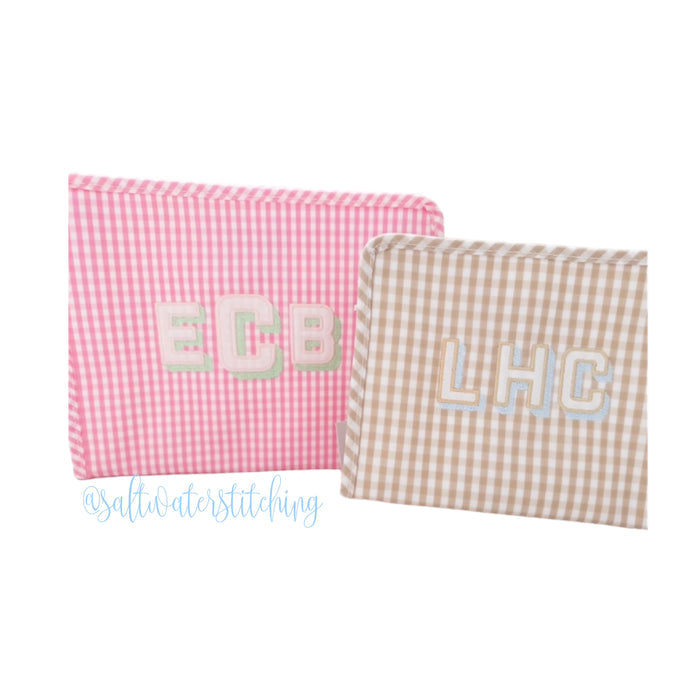
4x4 Block Shadow Appliqué Embroidery Font Package
Transform your embroidery projects with the 4x4 Block Shadow Appliqué Embroidery Font Package. This versatile package includes uppercase letters A-Z in four convenient sizes, perfect for various applications.